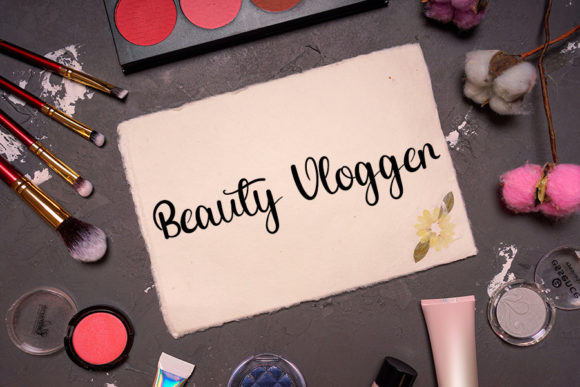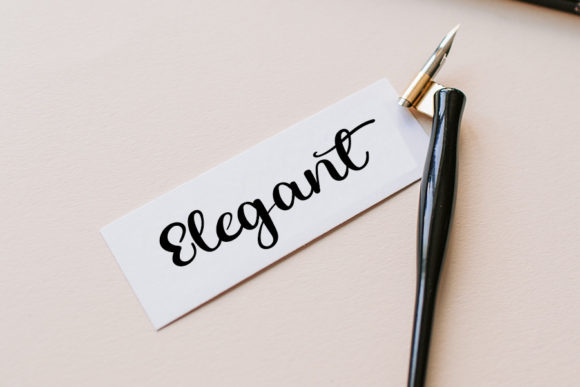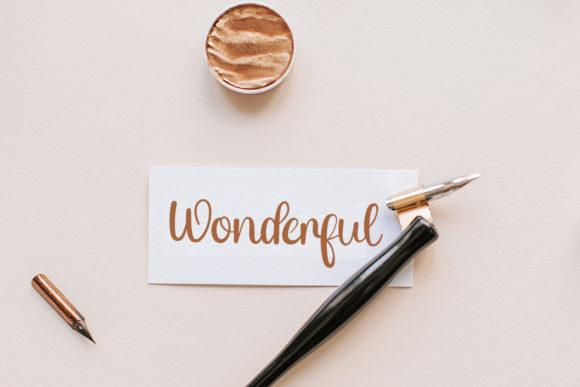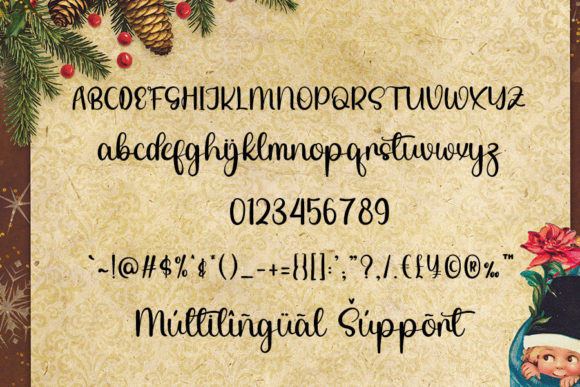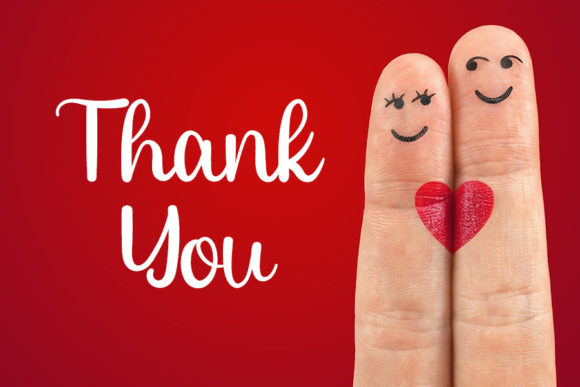
Casanova Font: Elevate Your Designs with Timeless Elegance
In the world of typography, few fonts manage to capture the essence of classic calligraphy while still exuding a modern vibe. Casanova Font is one such gem that has been making waves in the design community. This stylish handwritten font is inspired by timeless classic calligraphy, yet it boasts a contemporary atmosphere that is hard to resist. In this article, we’ll delve into the features, benefits, and uses of Casanova Font, and explore how it can elevate your designs to new heights.
The Inspiration Behind Casanova Font
Casanova Font draws its inspiration from the art of classic calligraphy, a style that has been revered for centuries for its elegance and sophistication. The font’s creator aimed to capture the essence of this timeless art form while infusing it with a modern twist. The result is a font that is not only beautiful but also versatile and highly legible.
Key Features of Casanova Font
So, what makes Casanova Font stand out from the crowd? Here are some of its key features:
- Balanced and Varied: Casanova Font strikes the perfect balance between thickness and thinness, making it easy to read and visually appealing.
- Contemporary Atmosphere: Despite being inspired by classic calligraphy, Casanova Font has a distinctly modern feel that will make your designs stand out.
- Impeccable Form: The font’s impeccable form ensures that it looks great in various design applications, from digital media to print materials.
- Handwritten Style: Casanova Font has a beautiful handwritten style that adds a personal touch to your designs.
Benefits of Using Casanova Font
Casanova Font offers numerous benefits to designers and crafters. Here are some of the advantages of using this stunning font:
- Elegance and Sophistication: Casanova Font adds a touch of elegance and sophistication to your designs, making them perfect for high-end projects.
- Versatility: The font’s versatility ensures that it can be used in various design applications, from branding and advertising to packaging and web design.
- Legibility: Casanova Font is highly legible, making it perfect for body text and headlines.
- Unique Style: The font’s unique style ensures that your designs stand out from the crowd and leave a lasting impression.
Uses of Casanova Font
Casanova Font is a versatile font that can be used in various design applications. Here are some of the ways you can use this stunning font:
- Branding and Advertising: Use Casanova Font to create stunning brand identities, logos, and advertisements that exude elegance and sophistication.
- Packaging Design: Add a touch of luxury to your packaging designs with Casanova Font.
- Web Design: Use Casanova Font to create beautiful website headers, titles, and body text that will engage your visitors.
- Print Materials: Casanova Font is perfect for print materials, such as brochures, flyers, and business cards.
Tips for Using Casanova Font
Here are some tips for using Casanova Font effectively in your designs:
- Pair it with Other Fonts: Experiment with pairing Casanova Font with other fonts to create stunning contrast and visual interest.
- Use it for Headlines and Titles: Casanova Font is perfect for headlines and titles, where its elegance and sophistication can shine.
- Experiment with Colors: Try out different colors and textures to add depth and visual interest to your designs.
| Font Name | Casanova Font |
Casanova Font is a stunning handwritten font that offers a perfect blend of classic elegance and modern sophistication. Its versatility, legibility, and unique style make it a valuable addition to any designer’s toolkit. Whether you’re working on a branding project, packaging design, or web design, Casanova Font is sure to elevate your designs to new heights. So why wait? Download Casanova Font today and experience the power of timeless elegance in your designs.